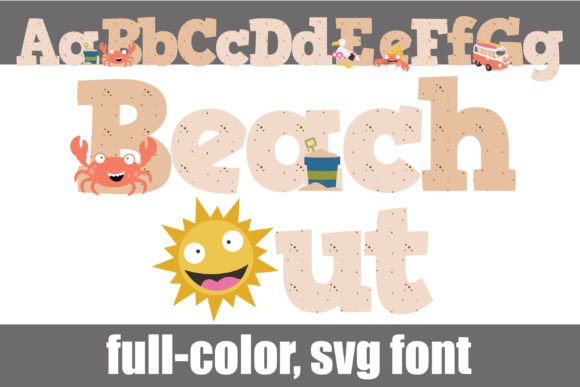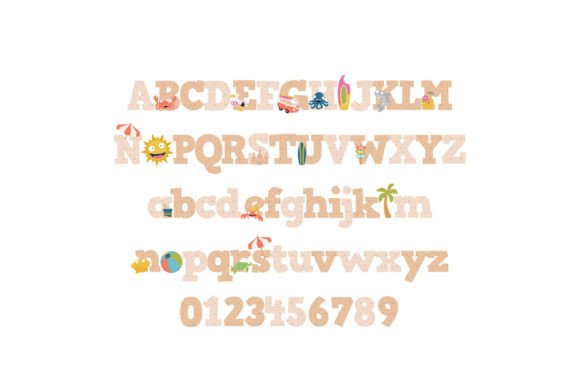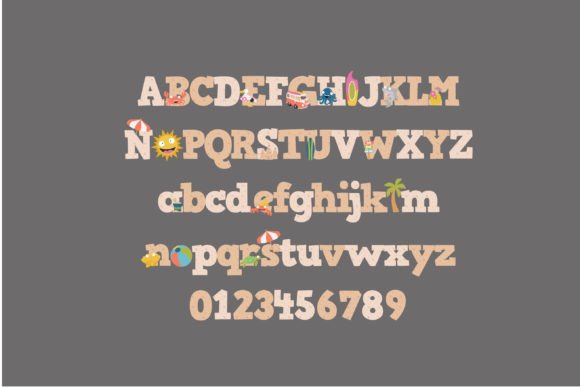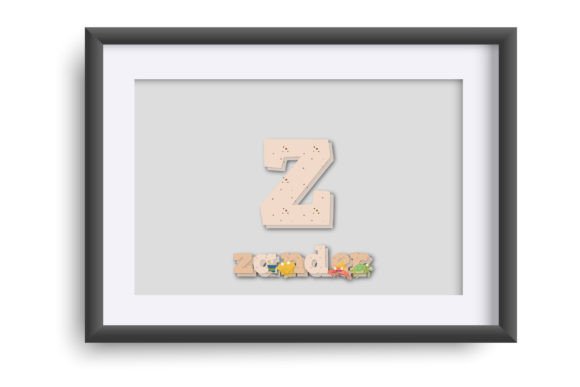
About the Beach out Font
The Beach out Font is here to transform your projects with its distinctive character and style. This full-color font features a whimsical serif font filled with sand and sporting beach-related items. There is an alt case w/ additional colors you can access through your system or Silhouette’s glyph map. This font works best for titles, displays, posters and more. Please note color fonts will show as black in non compatible programs. This font type is compatible with Silhouette Studio.